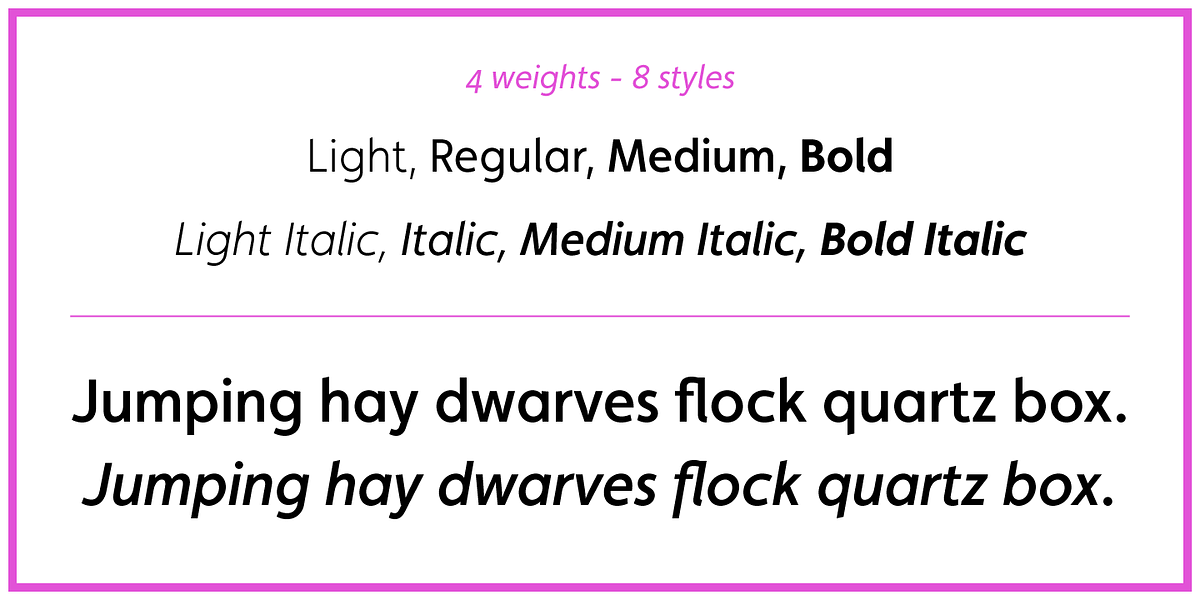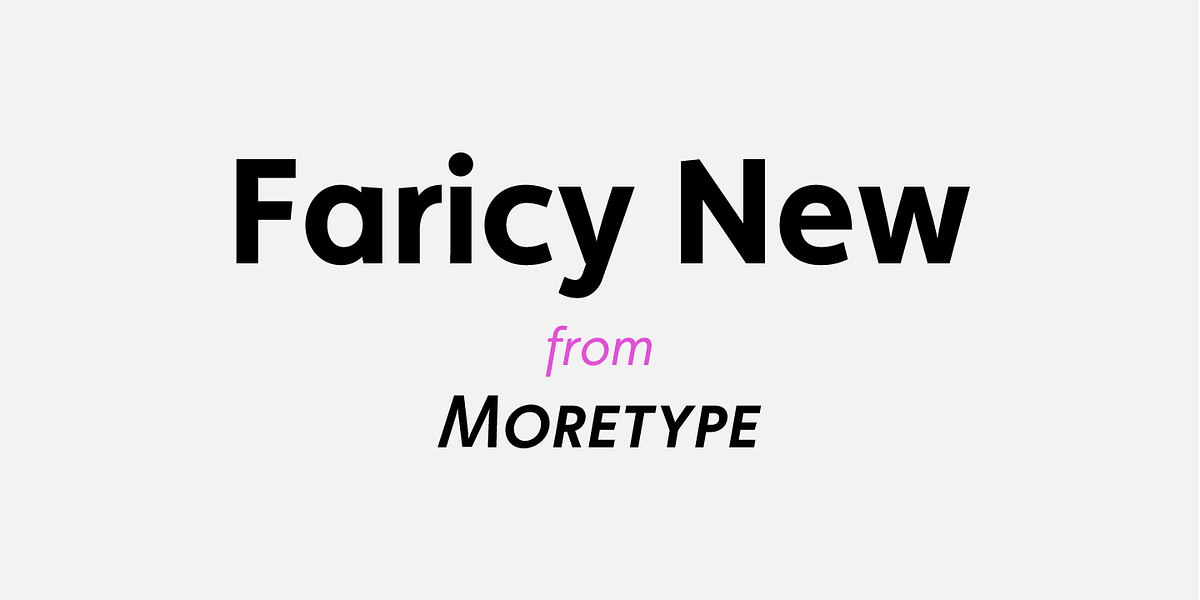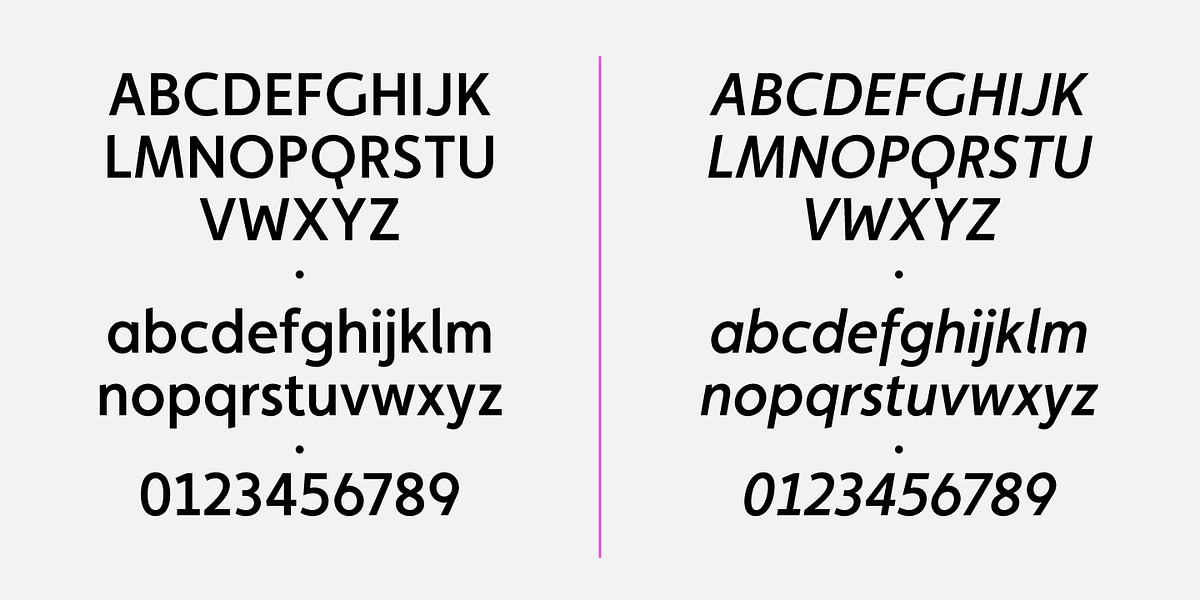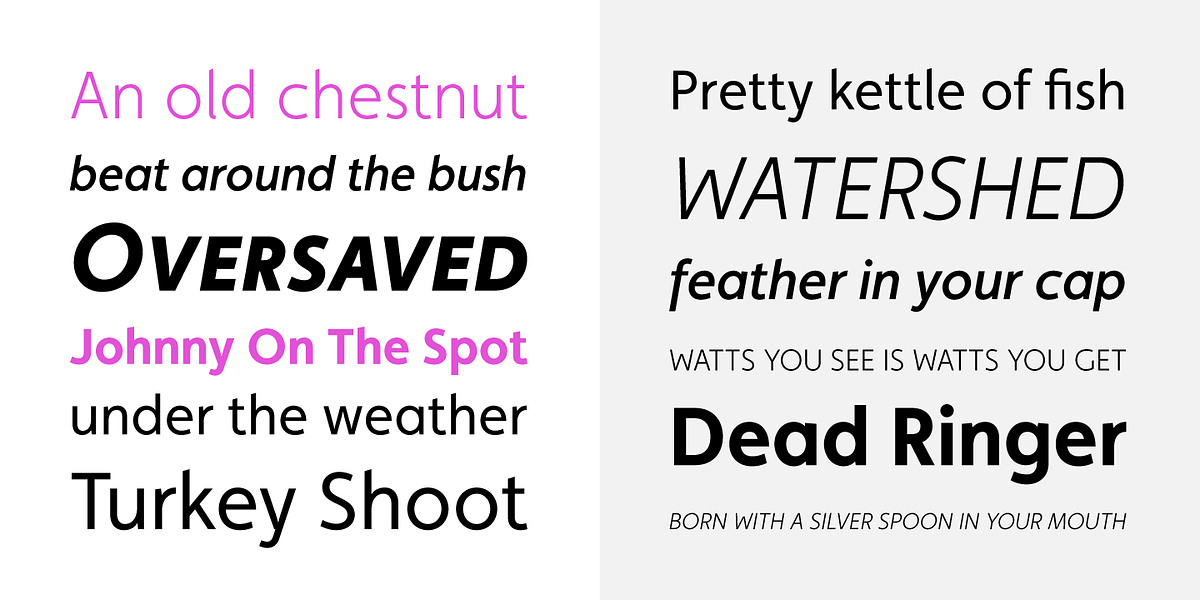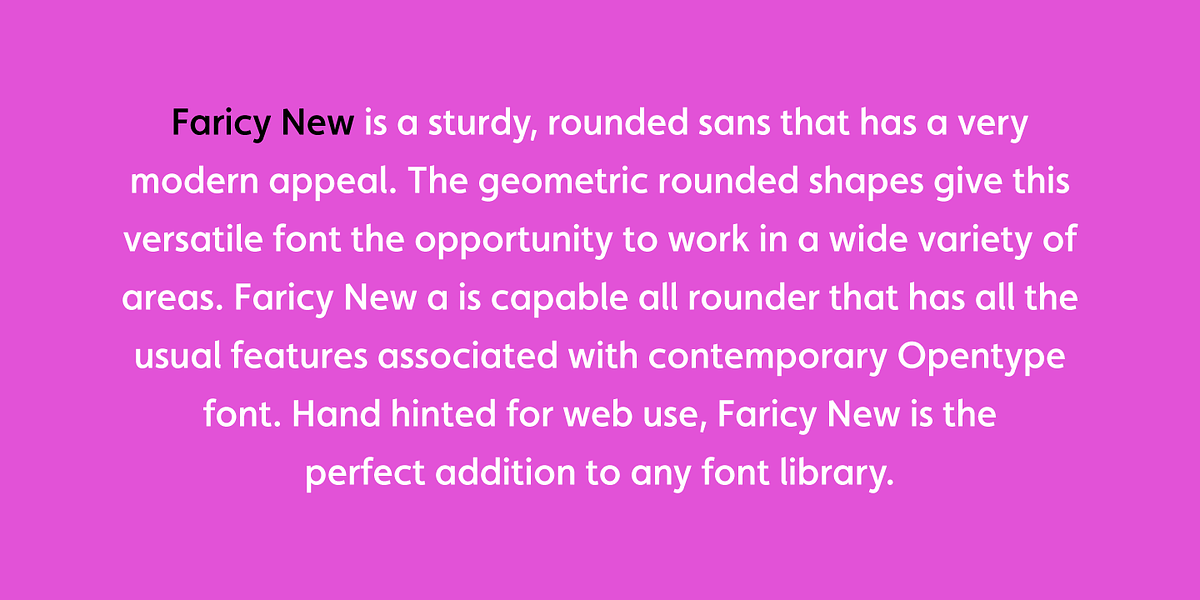
Faricy New
Faricy New is a modernized version of the original Faricy font, released in 2004. It retains its clean, geometric aesthetic while offering updated features like new spacing and kerning, small caps, tabular and proportional numerals, ligatures, and hinting for web use. Its modern and bold style makes it suitable for headlines, titling, and corporate branding.